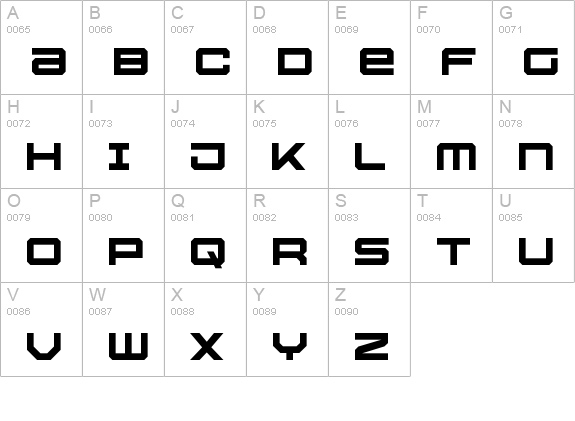
USS Dallas Font Details
The USS Dallas font is a sleek and modern typeface that exudes sophistication and elegance. With its clean lines and stylish curves, this font is perfect for a wide range of design projects, from branding to advertising to packaging. The USS Dallas font is versatile and easy to read, making it a great choice for both print and digital applications.